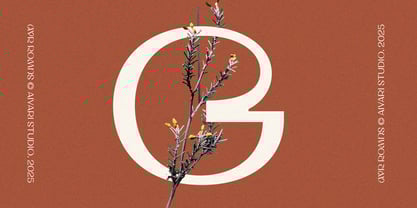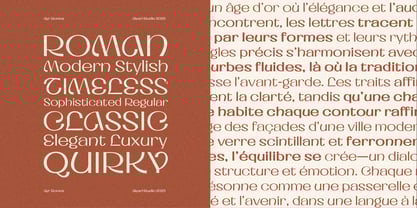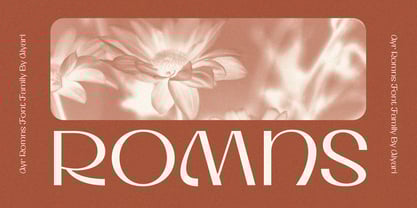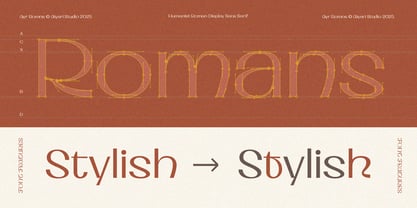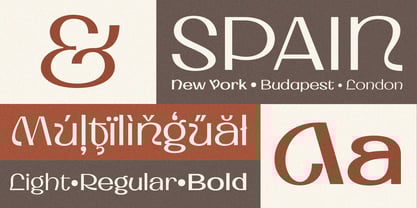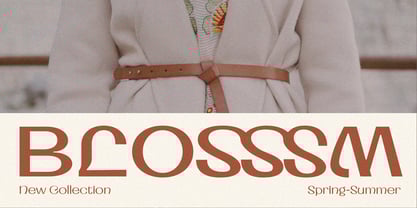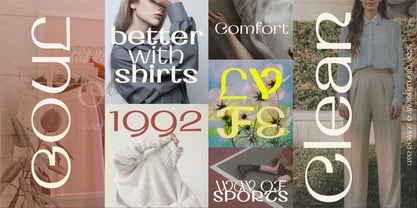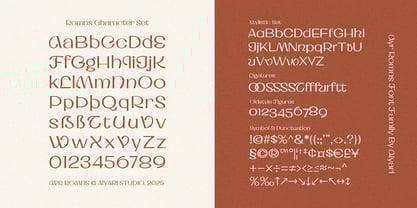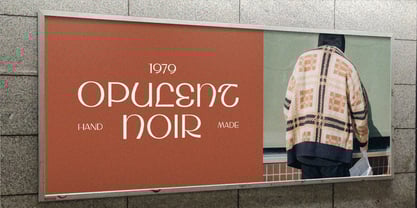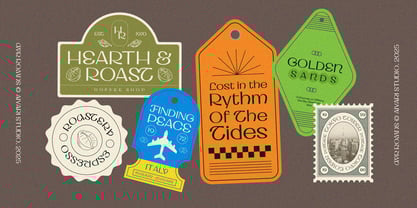
Ayr Romns
by Aiyari
The Ayr Romns Font Family was designed by Ricky Rinaldi and published by Aiyari. Ayr Romns contains 3 styles and family package options. More about this family
Introducing Romns a display typeface inspired by the elegance of Roman letterforms, seamlessly blending influences from the Art Deco and Art Nouveau movements with a touch of modernism and humanist sans-serif aesthetics. Its distinctive shapes and refined details evoke a sense of nostalgia while maintaining a contemporary appeal.
Ideal for logotypes, posters, packaging, book covers, and creative projects that seek a unique yet timeless character, Romns brings a sophisticated yet aesthetic touch to any design.
Designers: Ricky Rinaldi
Foundry: Aiyari
Aiyari Studio was founded in 2015 by Ricky Rinaldi, a renowned graphic and type designer from Bandung, Indonesia. Aiyari Studio's typefaces are characterized by their retro and nostalgic style, making them a valuable asset for designers aiming for a modern yet nostalgic style. It doesn't matter whether you're designing packaging, editorial layouts, or websites, Aiyari Studio typefaces will elevate your work and amplify its sense of timeless sophistication.